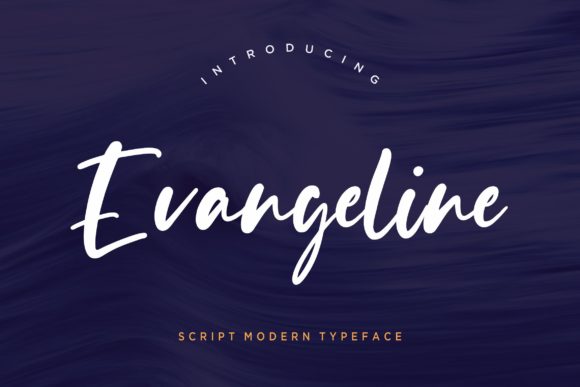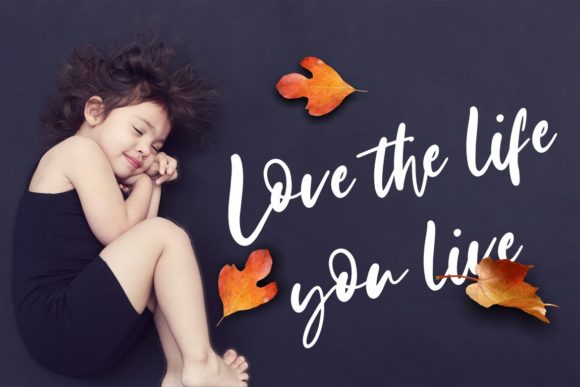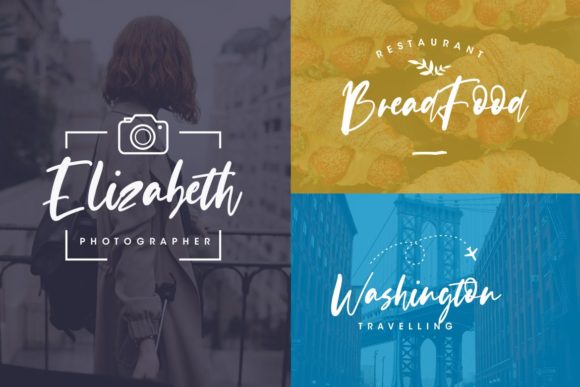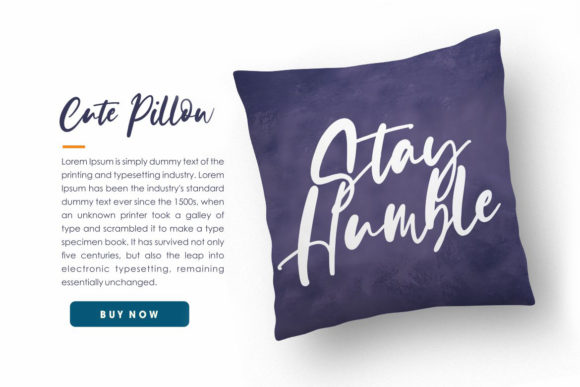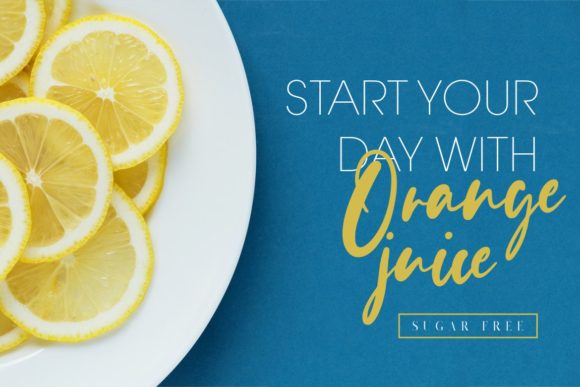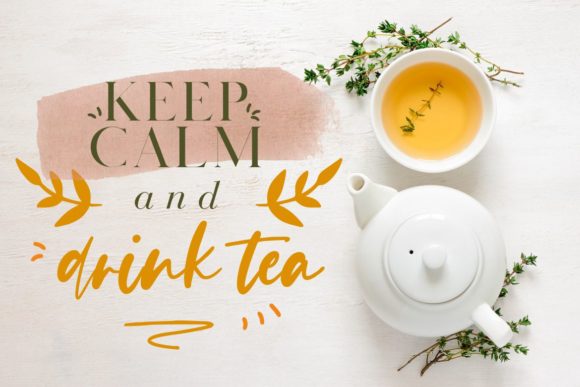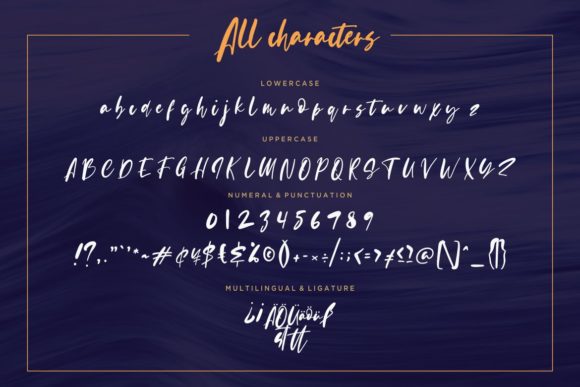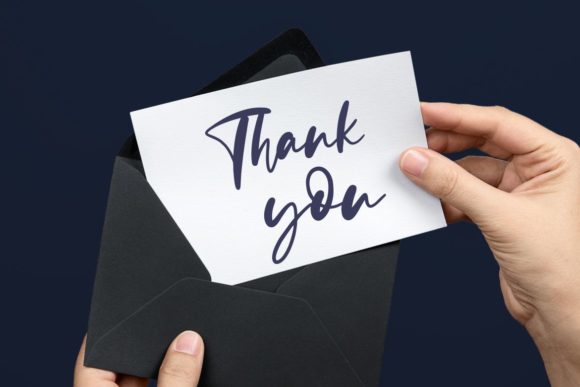
HomeScript FontsEvangeline Font Script Fonts Evangeline Font FacebookXPinterestWhatsApp Evangeline Font Poster 2 Evangeline Font Poster 3 Evangeline Font Poster 4 Evangeline Font Poster 5 Evangeline Font Poster 6 Evangeline Font Poster 7 Evangeline Font Poster 8 About Evangeline Font Evangeline is a beautiful, bold, and simply charming. Fall in love with its timeless authenticity. DOWNLOAD ON CREATIVE FABRICAThis font is sold and delivered by Creative Fabrica. Font Canyon may earn a commission if you buy through this link. People also explored Peristiwa Grenzoo Font Codename Fx Oskar Font Ainslie Floralia Font The Beauty Font Shopping Font Old Story Bold Font 269 0 TagsEvangeline Font Previous articleAnttisol FontNext articleSapha Font LEAVE A REPLY Cancel reply Comment: Please enter your comment! Name:* Please enter your name here Email:* You have entered an incorrect email address! Please enter your email address here Website: Save my name, email, and website in this browser for the next time I comment. Personal Use Free City Tour Personal Use Free Read more about this font Love Baby Personal Use Free Read more about this font Happy Camping Personal Use Free Read more about this font Ashay Personal Use Free Read more about this font BLOG To increase your work productivity, choose the most readable fonts. In today's fast-paced work environment, where digital communication and information consumption are integral to our daily routines, the choice of fonts can significantly impact... The 10 Best Handwriting Fonts to Add Personality to Your Designs How to Cut Any Font on Cricut: Convert a Font to SVG (Free) Top 7 Google Fonts Alternatives for Faster and Privacy-Friendly Web Design (2025)